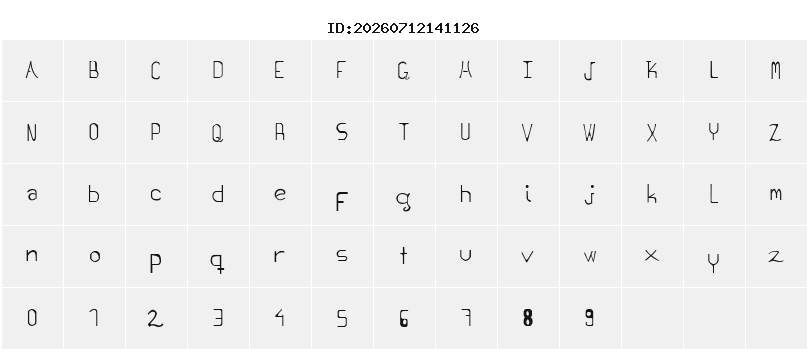
Reading point.ttf
Reading point.ttf is a modern, elegant sans-serif font designed for ultimate readability and visual harmony. Perfect for branding, headlines, web design, and print materials.